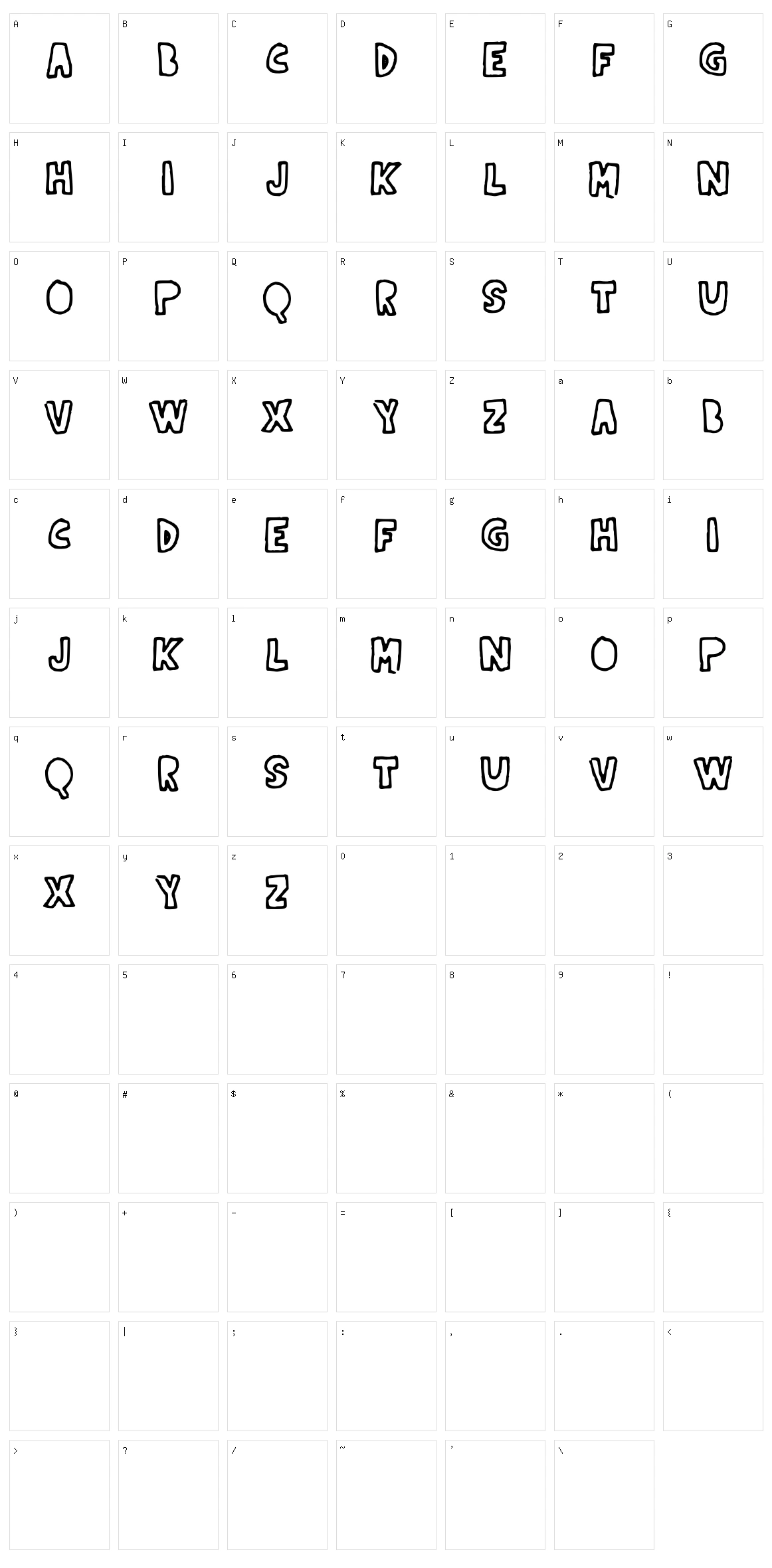
The free font Indernik Gold is carefully designed by indernik, showcasing a thoughtful balance of creativity and usability and falls under the Cartoon font style. When you download the ZIP file, it contains only 8.77 KB of font files, making it lightweight and quick to download. Please review the license details below to understand permitted usage and distribution rights. If license information is not available, we recommend using this font for personal projects only or contacting the author directly for commercial usage permissions.